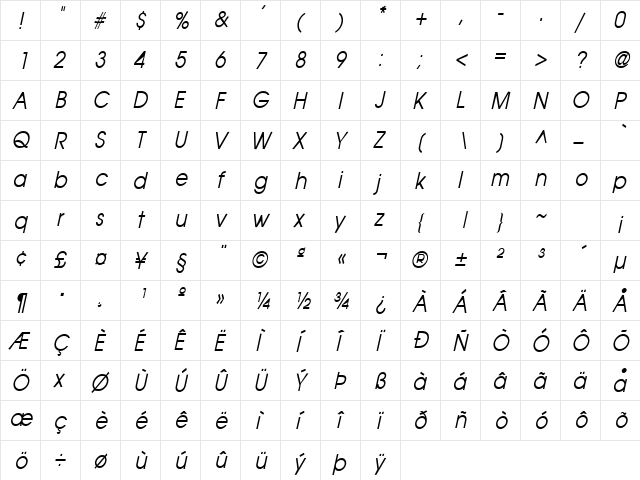
Atilla-Condensed Italic Font Preview
Design Context for Atilla-Condensed Typeface
Atilla-Condensed is a composed and adaptable typeface that performs quietly and consistently across a wide range of design contexts. The slanted form adds forward momentum and visual energy. The condensed width makes it efficient for tight spaces without sacrificing legibility.